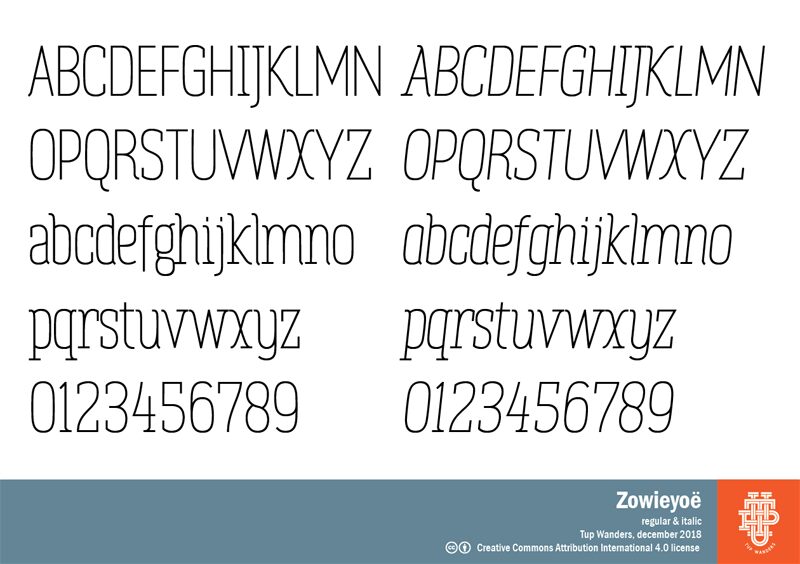
Zowieyoë Italic
Zowieyoë Italic font is a light and condensed typeface by Tup Wanders, characterized by its elegant, modernist design. It embodies geometric and minimalistic elements, ensuring refined and clean aesthetics suitable for sophisticated projects. The font captures an artistic flair with unique character shapes that contribute to its distinctive look.